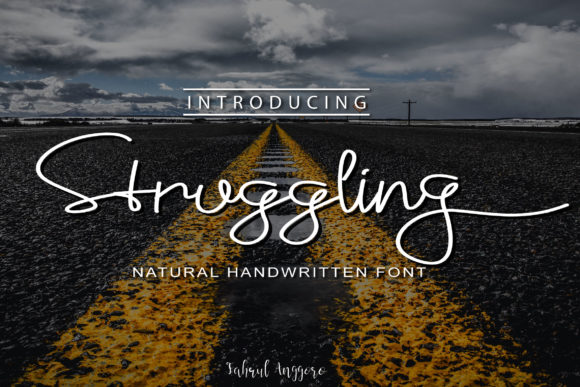
Embrace the captivating art of Struggling Font, a script masterpiece crafted by Fahrul Anggoro. Experience the allure of a natural handwritten font that breathes life into your designs. With its effortless readability, Struggling Font seamlessly blends elegance and authenticity, inviting you to create heartfelt connections with your audience.
Unleash your creativity and explore the endless possibilities of this versatile script. Whether you're crafting personalized signatures, building distinctive brands, or adding a touch of charm to watermarks and business cards, Struggling Font is your ultimate companion. Its versatility extends to logos, magazines, and quotes, effortlessly elevating your designs to new heights of sophistication.
Immerse yourself in the beauty of movie titles, posters, and wedding invitations brought to life with the grace of Struggling Font. Its ability to capture emotions and evoke a sense of nostalgia makes it an ideal choice for projects that demand a personal touch. Each curve and stroke of this font tells a story, inviting viewers to embark on a journey of visual delight.
With Struggling Font, you're not just downloading a font; you're acquiring an artistic tool that transforms your creative visions into tangible masterpieces. Its natural flow and organic aesthetic bring a touch of authenticity to your designs, ensuring that your message resonates with audiences on a profound level.
Don't settle for ordinary fonts that blend into the background. Embrace the uniqueness of Struggling Font and watch as your designs captivate and enchant. Its ability to evoke emotions and create lasting impressions makes it an invaluable asset for designers and artists seeking to make a statement.
Elevate your design game with Struggling Font and unlock a world of creative possibilities. Let your imagination run wild as you witness the transformation of your projects into visually stunning creations that leave an enduring impact.